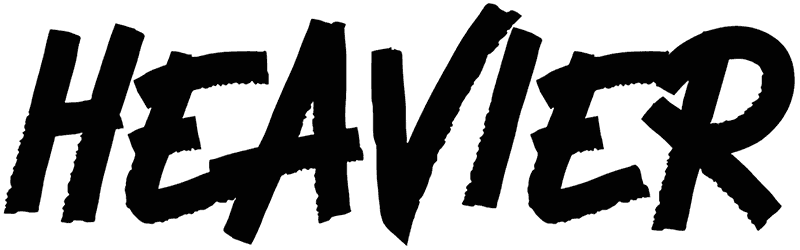
Heavier Font
Designed byCreaditive Design
Heavier is a brush font with a bold, sharp, slanted display. It gives off a dynamic, sturdy vibe; however, it might look scary somehow. This 80s font doesn’t support lowercase letters and punctuation, but has the potential to enhance your design uniquely. It will be an excellent choice for horror movies, T-shirt prints, video games, product packaging, and advertising.